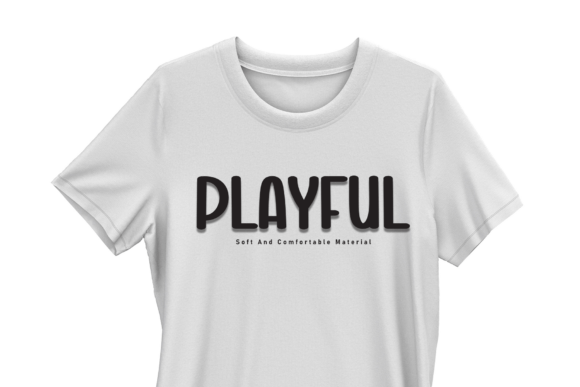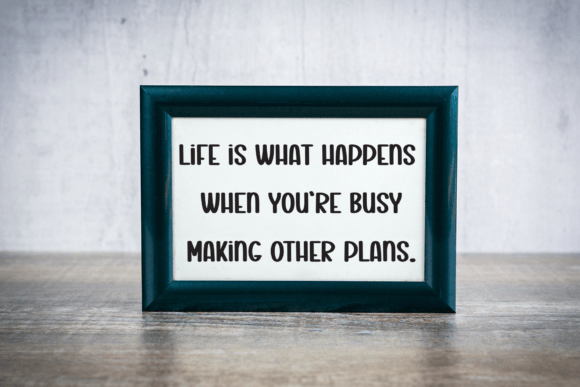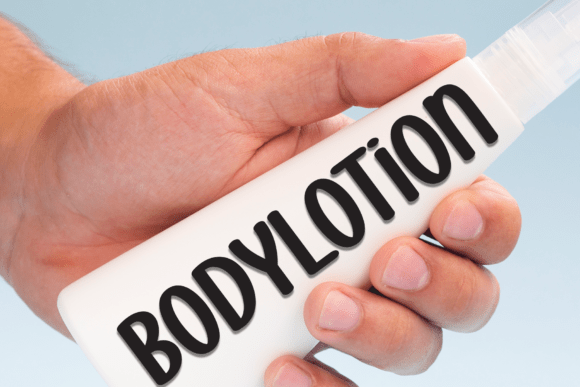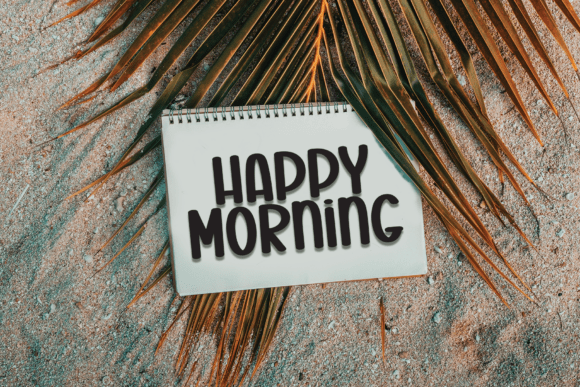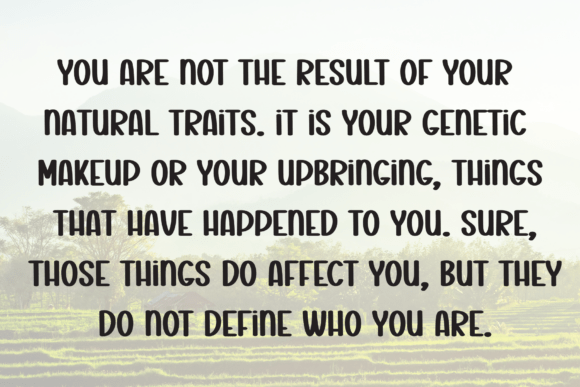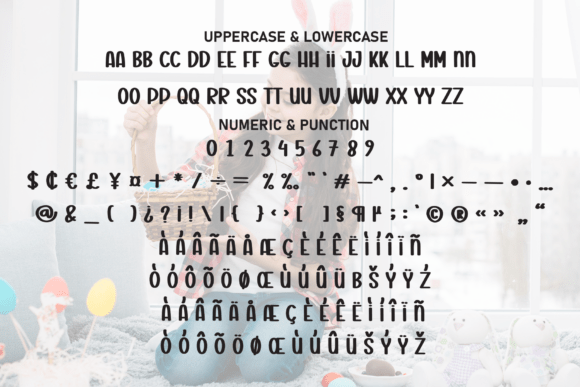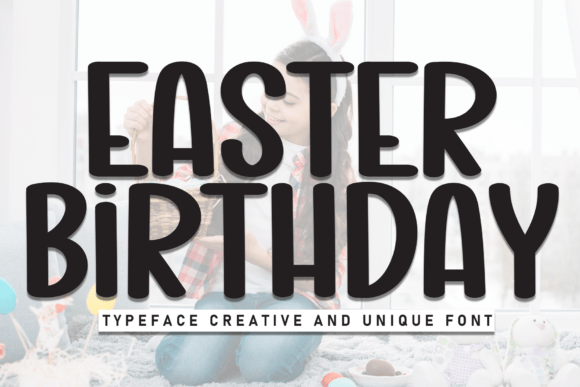
Easter Birthday Font: Add a Touch of Whimsy to Your Designs
Are you looking for a font that can add a playful and fun vibe to your designs? Look no further than the Easter Birthday Font! This delightful handwritten display font is perfect for designers and crafters who want to create unique and eye-catching compositions. With its sweet and welcoming personality, this font is sure to immerse you in its charming allure.
The Perfect Font for Whimsical Designs
The Easter Birthday Font is a perfect match for any design endeavor seeking a light-hearted and enjoyable finish. Whether you’re creating heartfelt wedding invitations, heartwarming cards, or any other type of design, this font is sure to add a touch of whimsy and charm. Its playful and fun personality makes it ideal for designers and crafters who want to create unique and eye-catching compositions.
Key Features of the Easter Birthday Font
- Handwritten Display Font: The Easter Birthday Font is a handwritten display font that features a sweet and welcoming personality.
- Playful and Fun Vibe: This font expertly injects a fun and playful vibe into any creative composition, making it perfect for designers and crafters who want to add a touch of whimsy to their designs.
- Perfect for Whimsical Designs: The Easter Birthday Font is perfect for heartfelt wedding invitations, heartwarming cards, or any design endeavor seeking a light-hearted and enjoyable finish.
- Easy to Use: This font is easy to use and can be effortlessly incorporated into your designs to add a dose of whimsical charm.
Design Ideas Using the Easter Birthday Font
The Easter Birthday Font is a versatile font that can be used in a variety of design projects. Here are some design ideas to get you started:
- Wedding Invitations: Use the Easter Birthday Font to create unique and eye-catching wedding invitations that set the tone for a fun and playful wedding celebration.
- Birthday Cards: Add a touch of whimsy to your birthday cards with the Easter Birthday Font, making them extra special and memorable.
- Party Decorations: Use the Easter Birthday Font to create fun and playful party decorations, such as banners, garlands, and signs.
- Social Media Graphics: Add a touch of whimsy to your social media graphics, such as Facebook posts, Instagram stories, and Twitter headers, with the Easter Birthday Font.
Tips for Using the Easter Birthday Font
Here are some tips for using the Easter Birthday Font in your designs:
- Pair with Other Fonts: Pair the Easter Birthday Font with other fonts to create a unique and eye-catching composition.
- Use in Combination with Images: Use the Easter Birthday Font in combination with images to add a touch of whimsy and charm to your designs.
- Experiment with Colors: Experiment with different colors to find the perfect combination that complements the Easter Birthday Font.
The Easter Birthday Font is a delightful handwritten display font that is perfect for designers and crafters who want to add a touch of whimsy and charm to their designs. With its sweet and welcoming personality, this font expertly injects a fun and playful vibe into any creative composition. Whether you’re creating heartfelt wedding invitations, heartwarming cards, or any other type of design, the Easter Birthday Font is sure to immerse you in its charming allure.